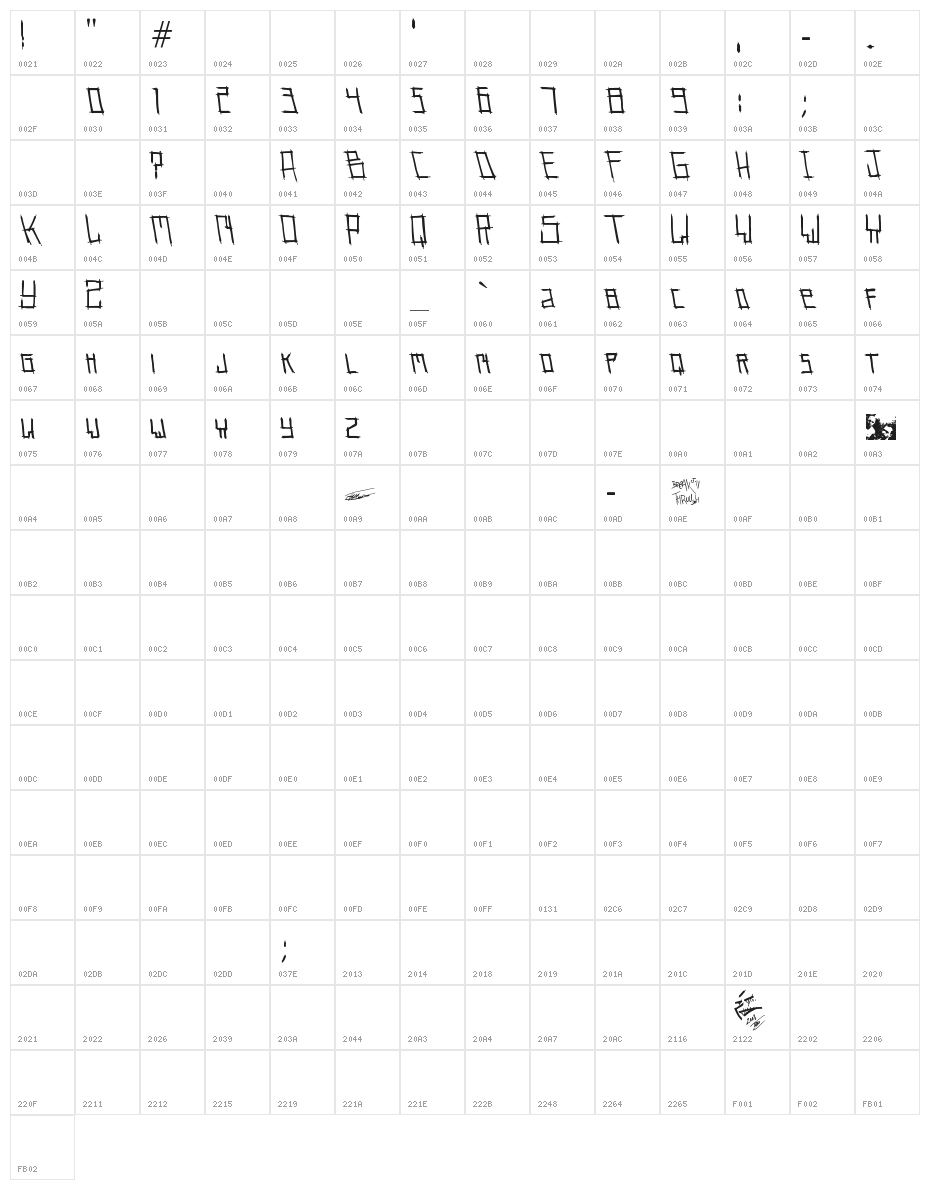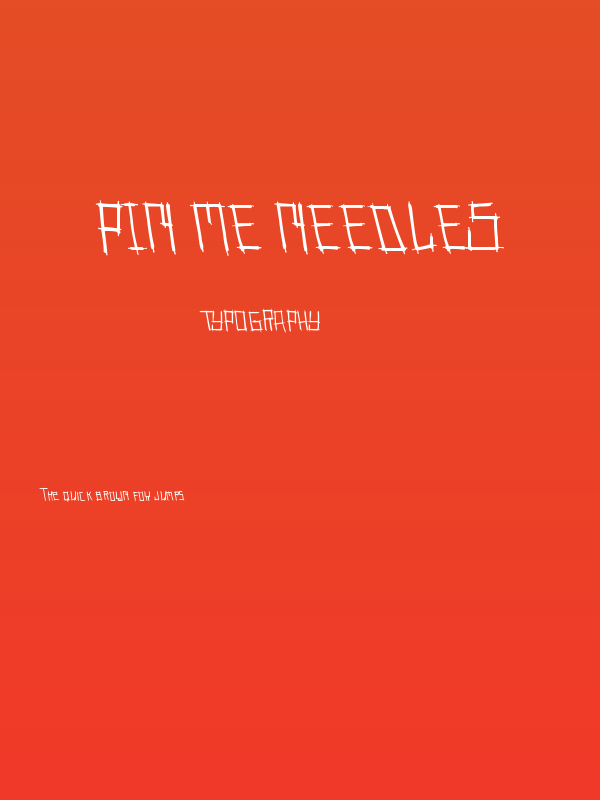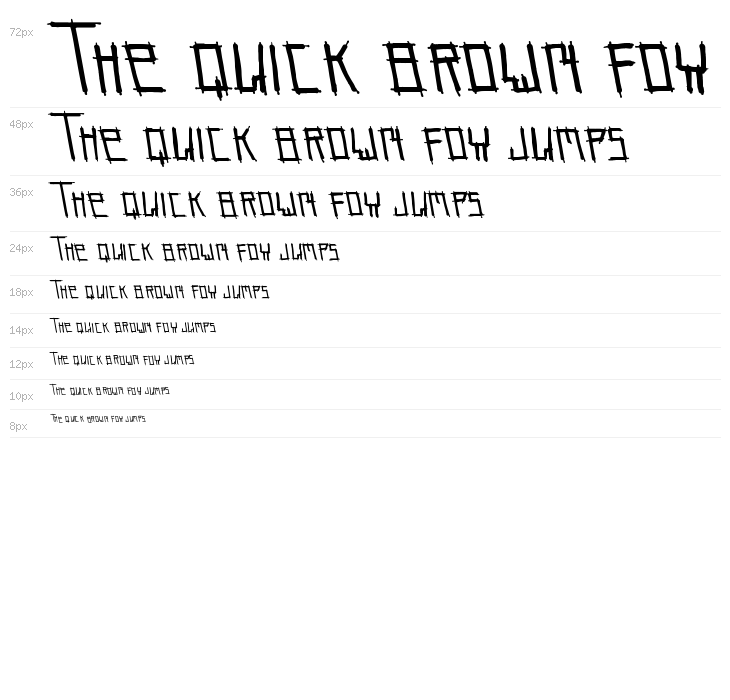
pin me needles Font
pin me needles Description
This font features a unique, edgy design that mimics the appearance of barbed wire or needles. The characters are constructed with sharp, angular lines and pointed ends, giving it a distinctly rugged and industrial feel. The uppercase and lowercase letters maintain a consistent style, with each character appearing as if it is crafted from twisted metal. The numbers and special characters follow the same aesthetic, ensuring a cohesive look across all elements. This font's unconventional style makes it stand out, perfect for projects that require a bold and daring visual impact.
| Overall Style | Modern, Industrial |
| Proposed Projects | Ideal for music album covers, event posters, or branding for edgy fashion lines. |